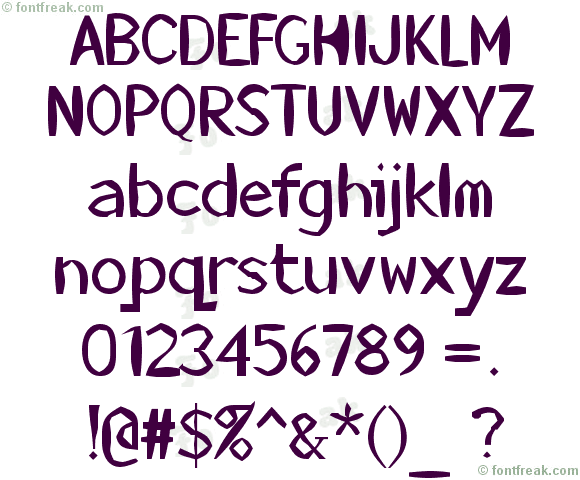
KillerStumps
Killer Stumps by Omega Font Labs is a captivating display font that exudes a playful yet rugged charm, making it ideal for projects that call for a bold, eye-catching typeface. This freeware font showcases a unique design characterized by its uneven, handcrafted edges, reminiscent of tree stumps, which adds an organic feel to any text. The stroke weight is inconsistent, giving it a lively appearance, while the contrast between thick and thin strokes enhances its visual impact. The spacing between letters is intentionally varied, which further contributes to its whimsical character and makes it stand out in any design.
Killer Stumps is well-suited for a variety of creative applications. It can be effectively used for eye-catching movie posters, where its distinctive style can capture attention and convey a sense of adventure or fantasy. Additionally, this font works wonderfully for restaurant menus, especially those with a rustic or outdoor theme, as it evokes a natural, earthy vibe. Graphic designers may find it ideal for promotional materials for outdoor events or festivals, where a spirited, fun font can enhance the message. Small business owners looking to create memorable branding can also benefit from Killer Stumps, using it for logos or packaging that require a touch of uniqueness.
Targeting graphic designers, small business owners, and content creators alike, Killer Stumps offers a fresh alternative to standard typefaces. Its free download option makes it accessible for anyone looking to infuse their work with an energetic and unconventional flair. This font stands out due to its distinctive aesthetic, which captures the essence of nature and adventure, making it a perfect choice for designs that aim to leave a lasting impression. Whether you're crafting a project for personal use or professional purposes, the Killer Stumps font free download is a fantastic addition to your typography toolkit.